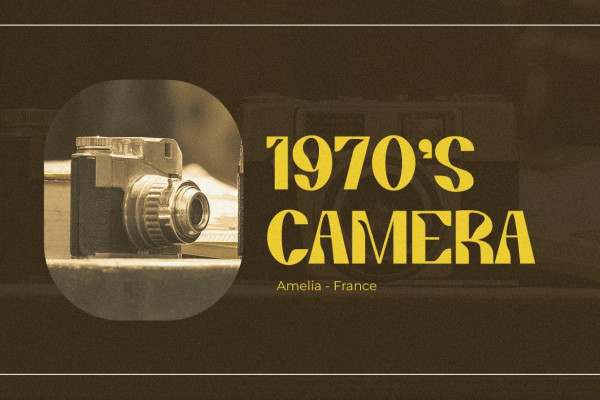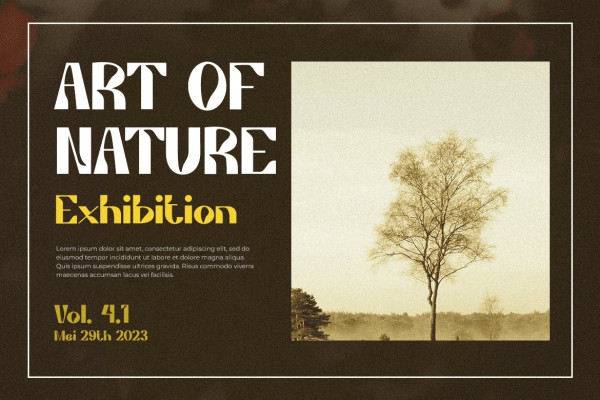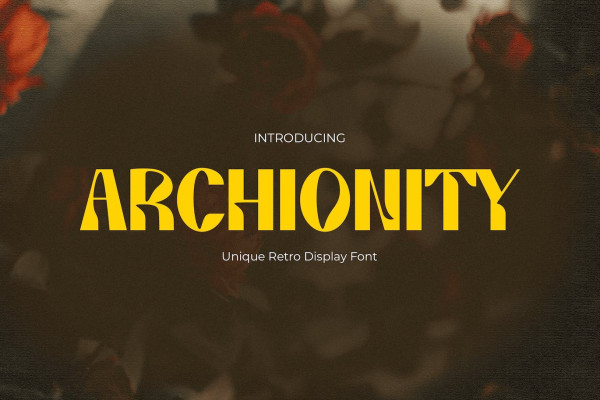
Archionity Font
Archionity Font is a font that takes you on a mesmerizing journey back to the era of retro psychedelia. With its vibrant and artistic style, this font perfectly captures the essence of the 70s and the trippy visuals of the time. Ideal for movie titles, film posters, restaurants, and any project with classic needs, Archionity Font adds a touch of nostalgia and groovy flair.
Let the mesmerizing letterforms of Archionity transport you to a world of vivid colors and abstract visuals. From its kaleidoscopic curves to its psychedelic charm, this font brings a burst of energy to your designs. Whether you’re creating a film poster or giving your restaurant a nostalgic makeover, it is the key to unlocking a world of retro magic. Embrace the spirit of the 70s and begin on a colorful odyssey with Archionity!